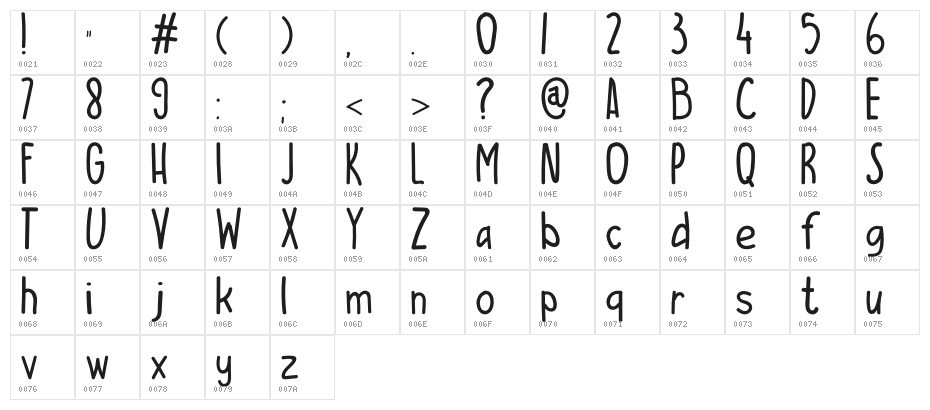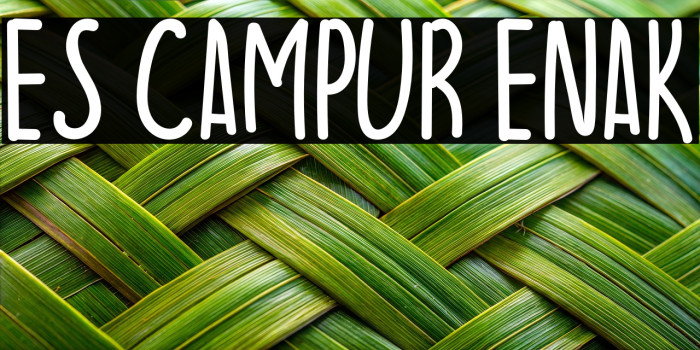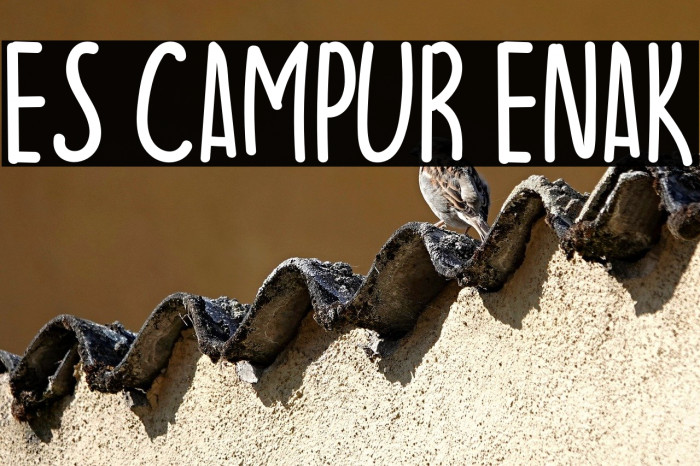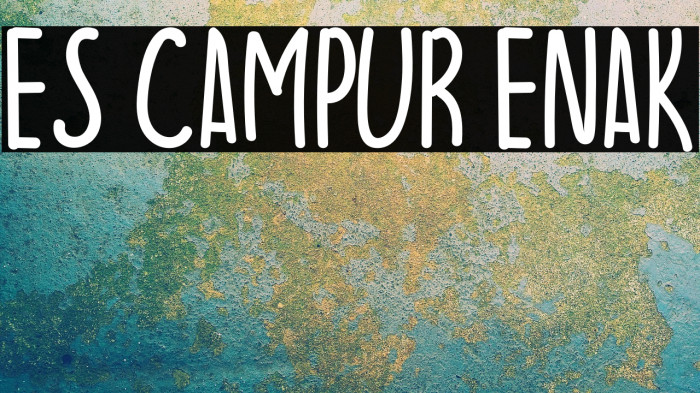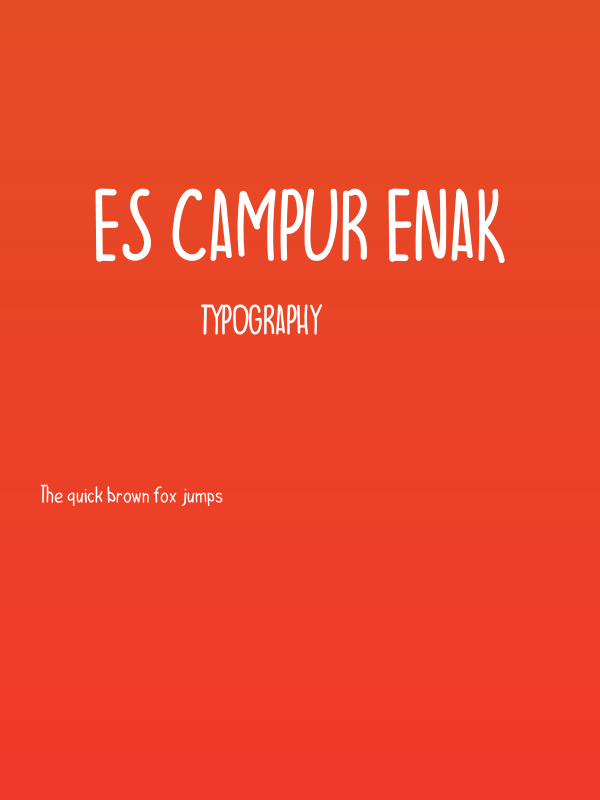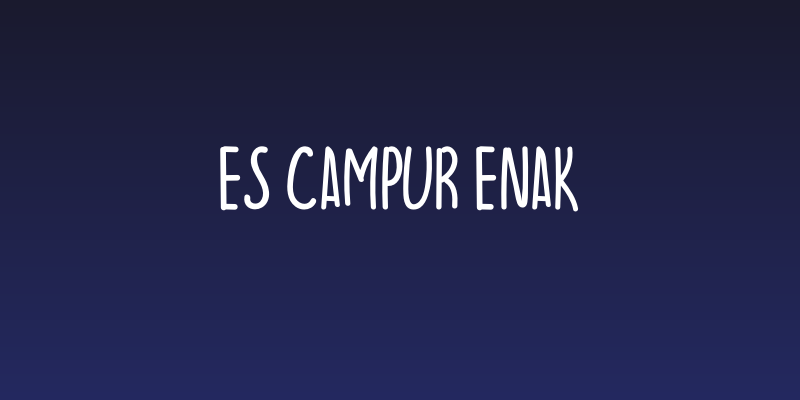
ES CAMPUR ENAK Font
ES CAMPUR ENAK Description
This font features a playful and informal handwritten style, characterized by its tall, narrow letters with a slight slant. The strokes are consistent in thickness, giving it a uniform appearance, while the rounded edges add a friendly and approachable feel. The uppercase letters are slightly taller than the lowercase, maintaining a cohesive look across both cases. Numbers and special characters follow the same style, ensuring versatility in various applications. The overall design is casual yet legible, making it suitable for creative projects that require a personal touch.
| Proposed Projects | Ideal for greeting cards, children's books, casual branding, and social media graphics. |